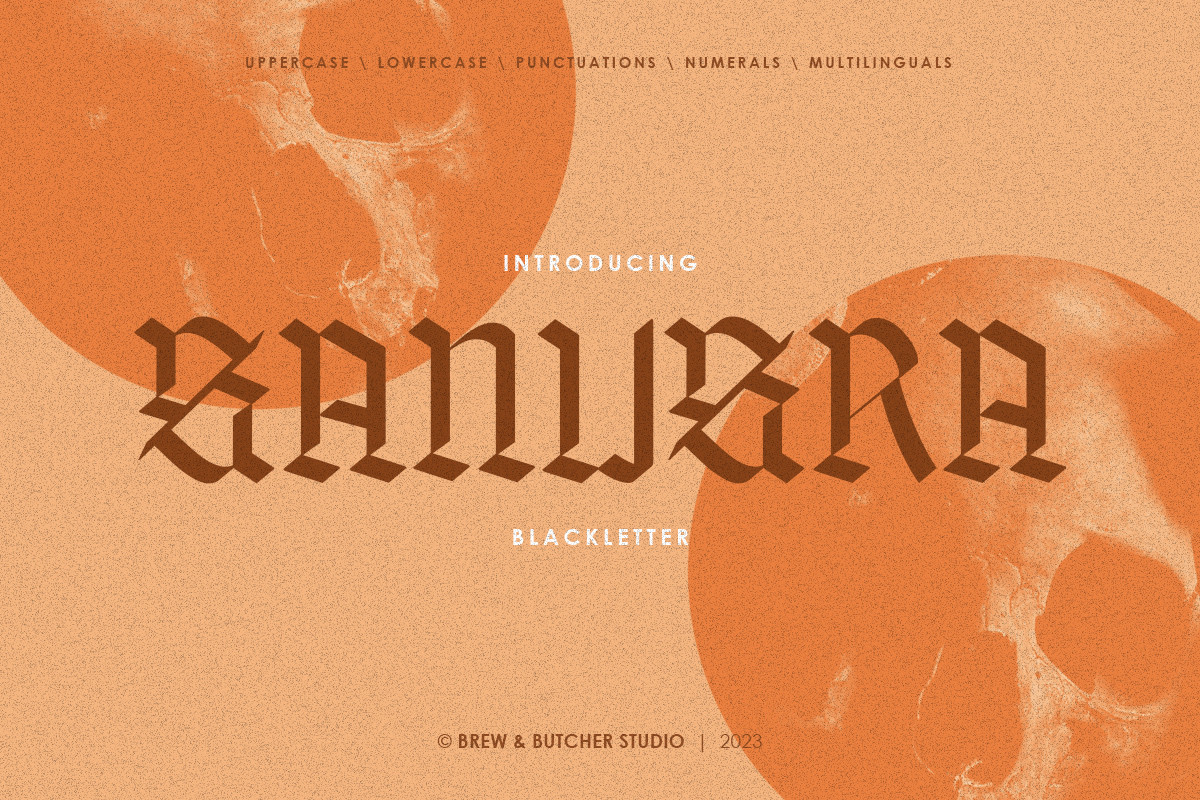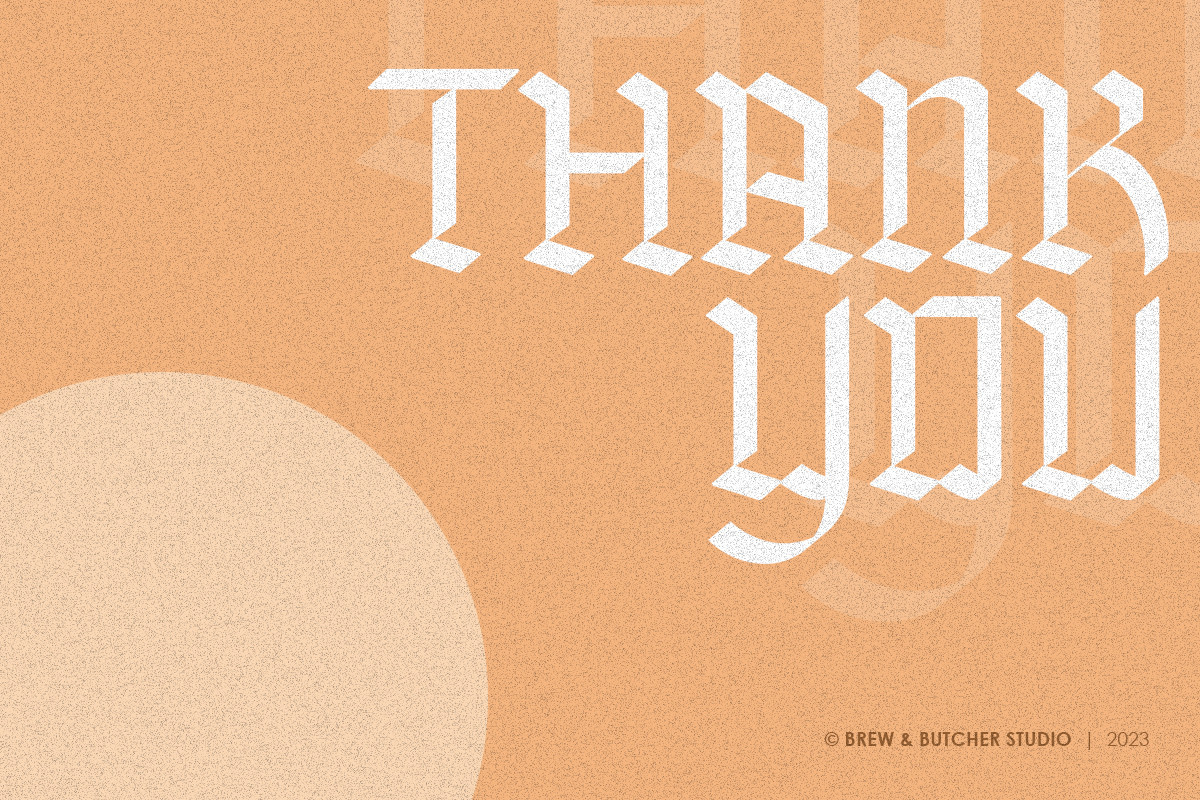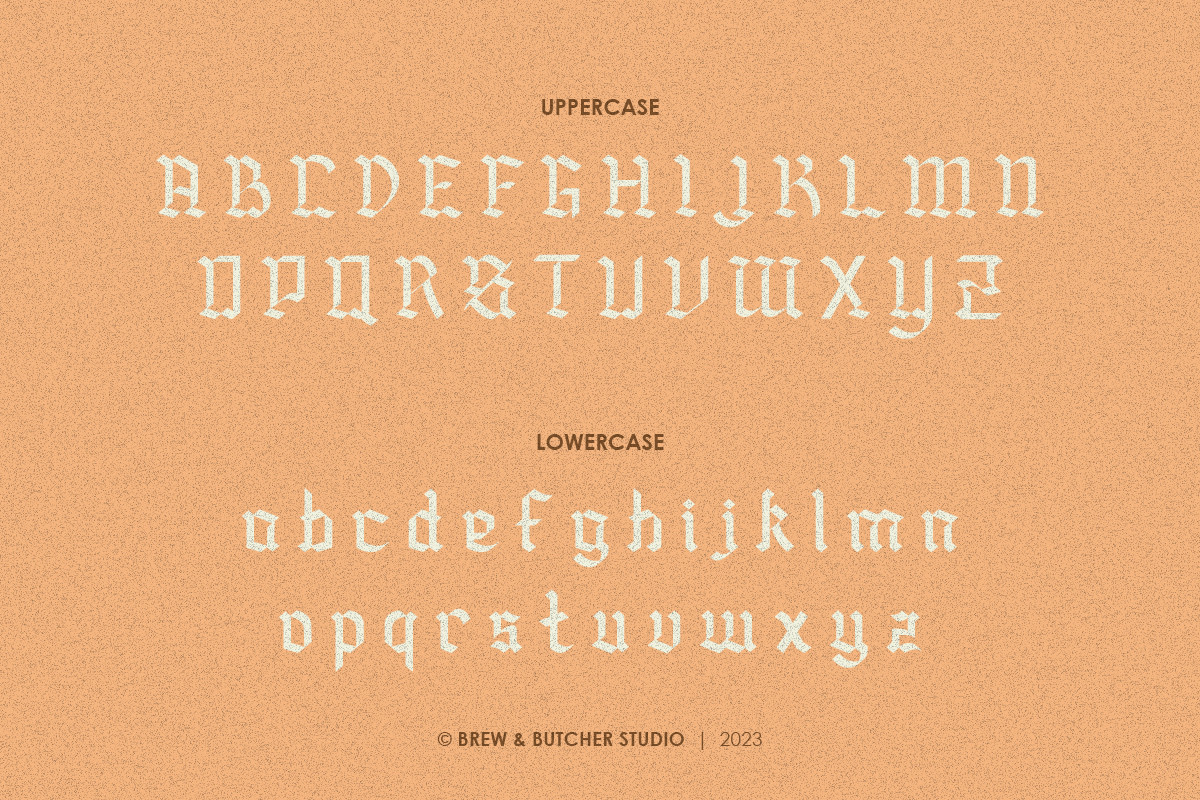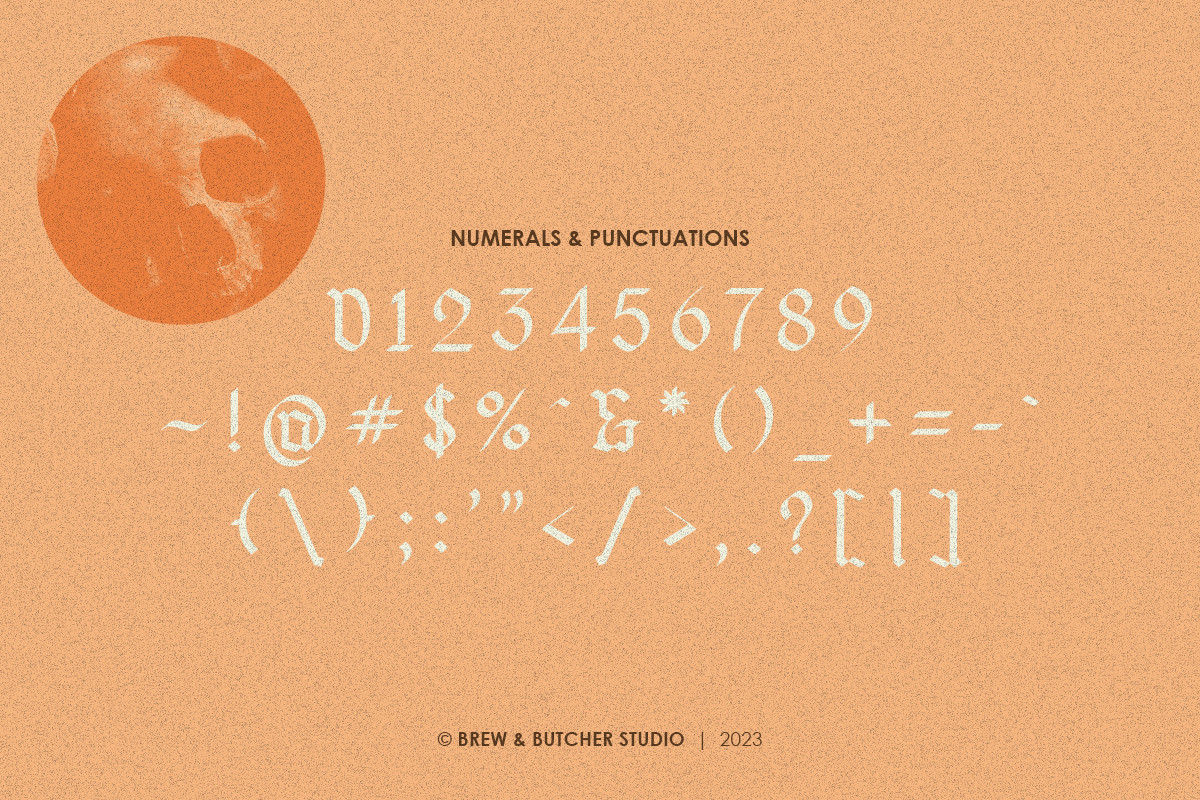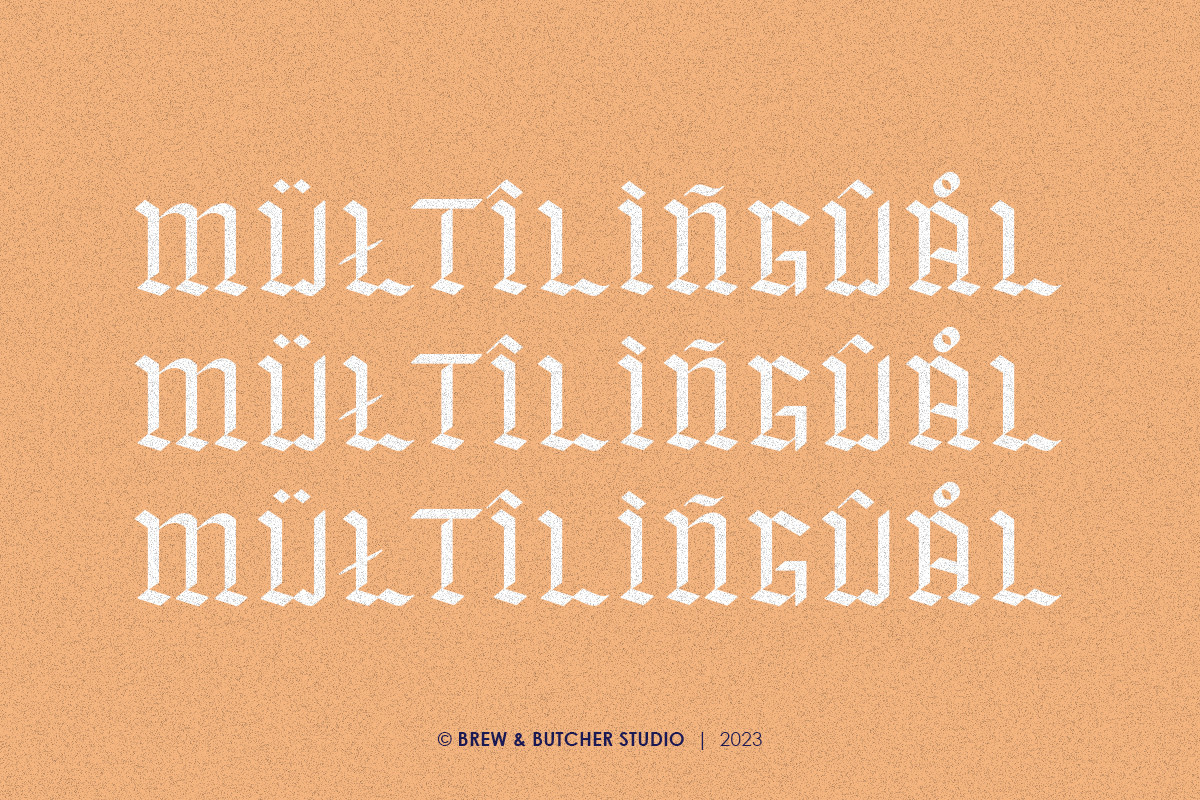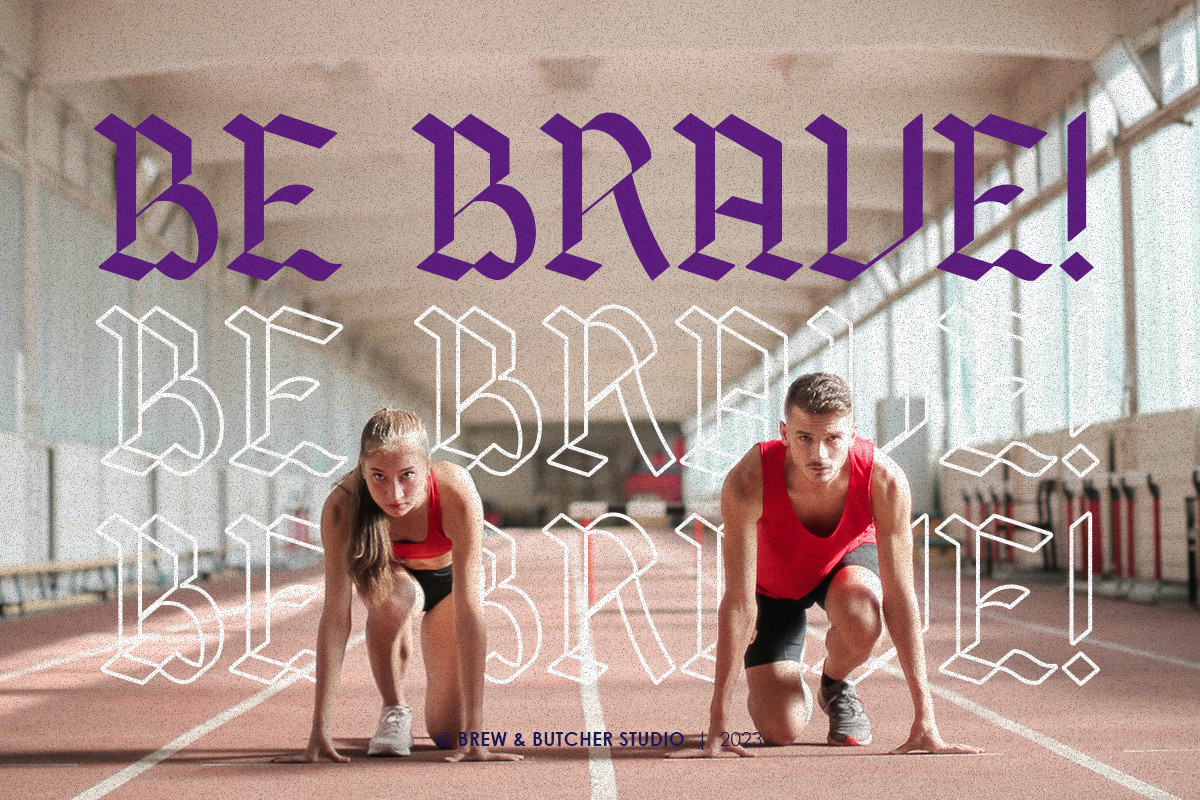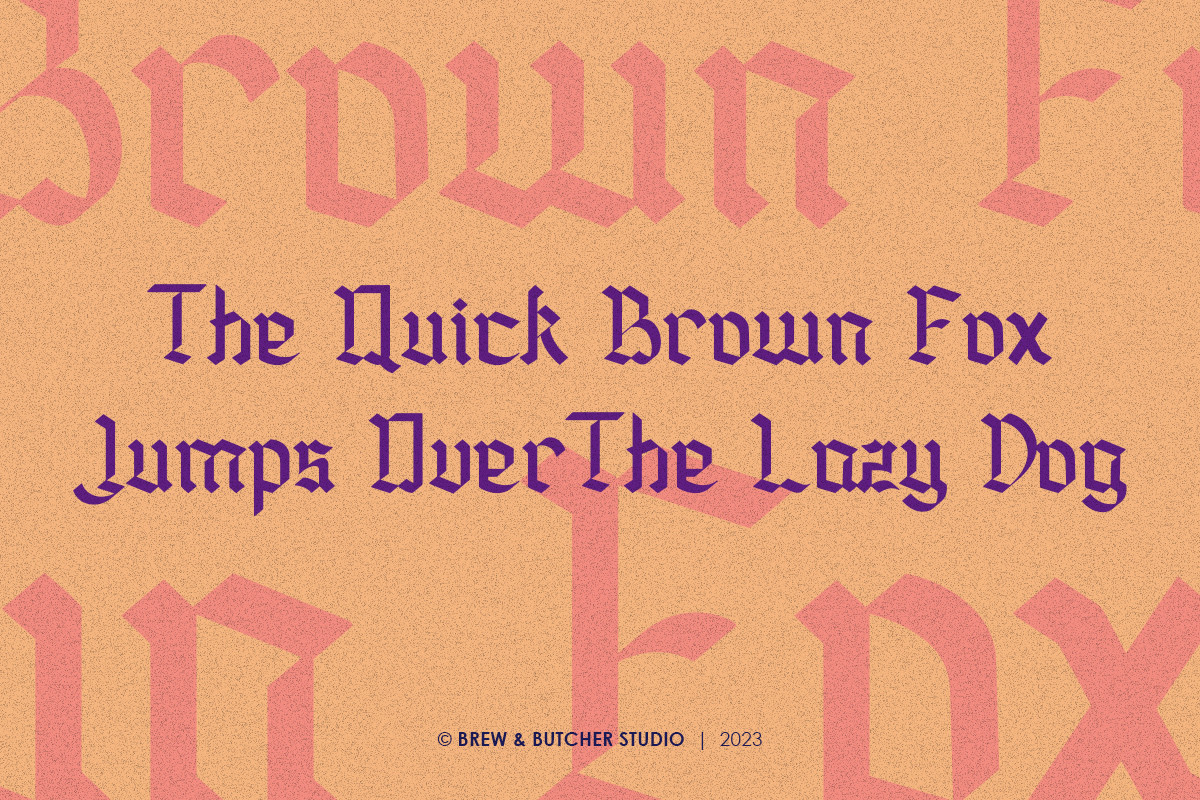
Sanusra Font
About Sanusra Font
Sanusra is an artistic blackletter calligraphy style. This font seems to have a slightly darker feel, but still has lighthearted characteristics when applied with a cheerful and fun designs. Use it for headers or headlines, posters, flyers, banners, landingpages, portfolios, album covers and more.